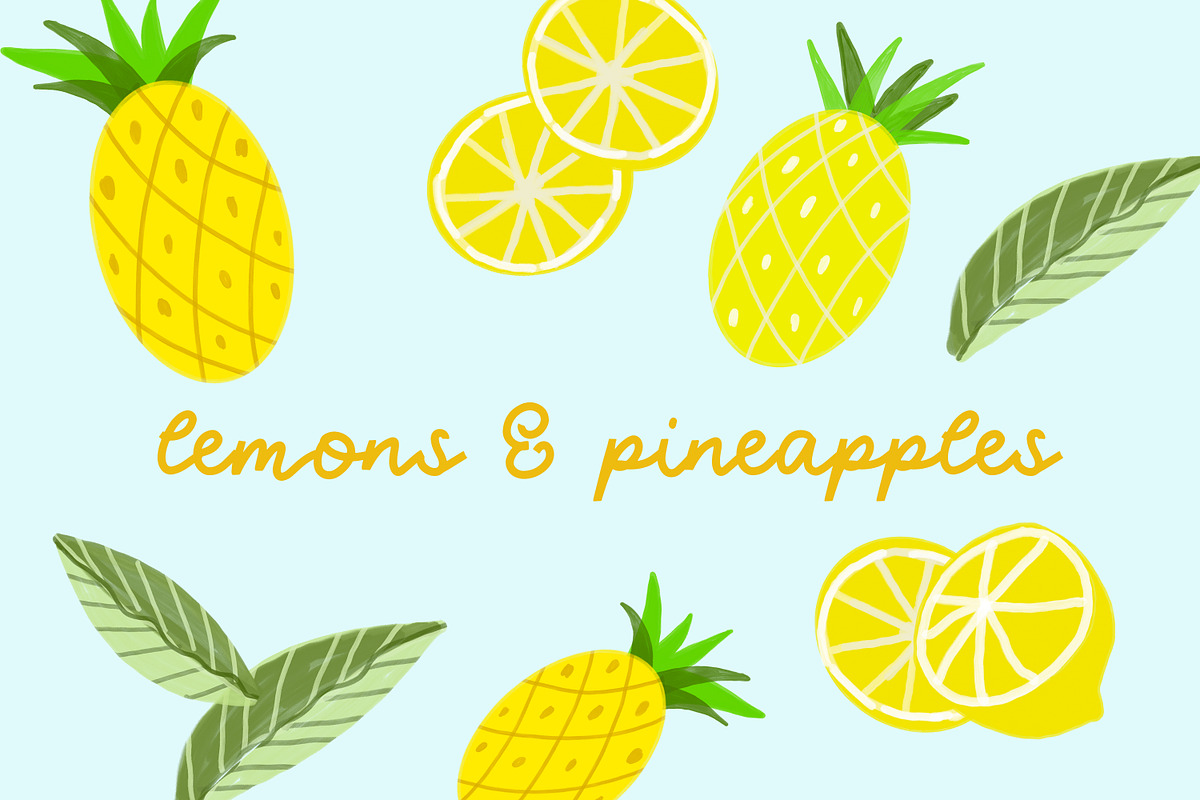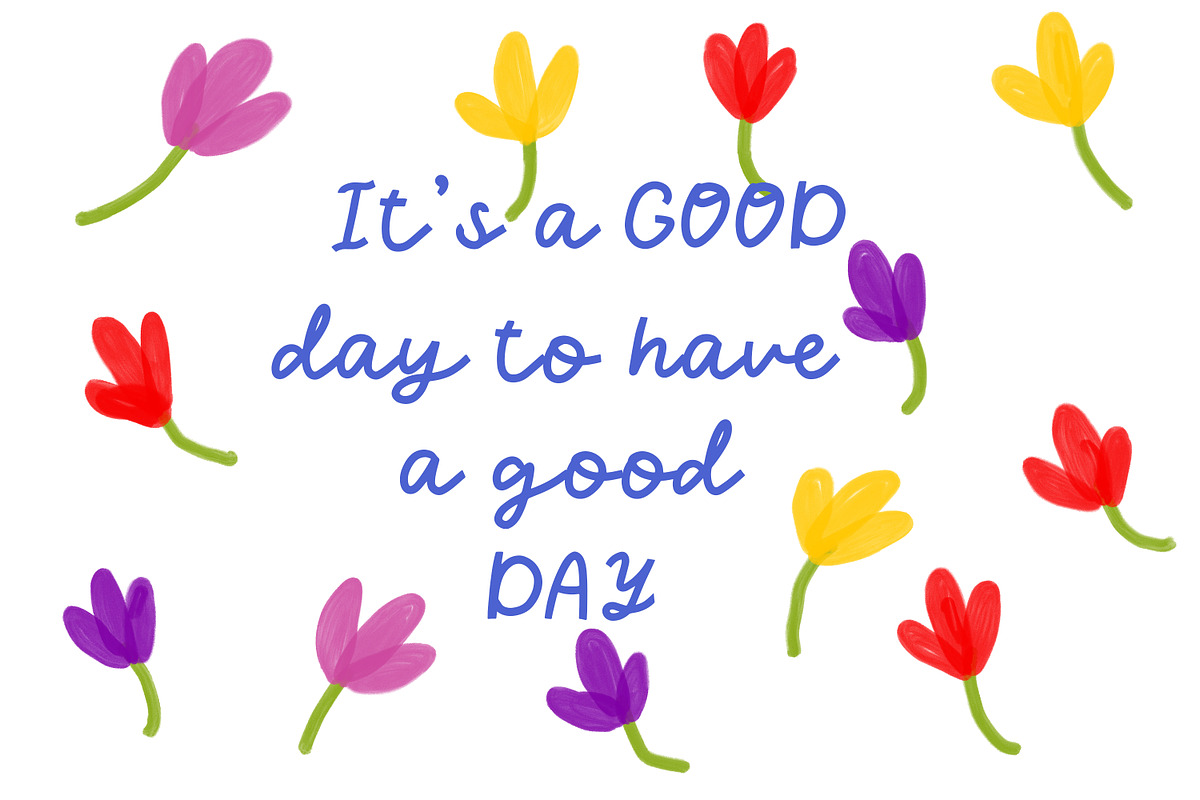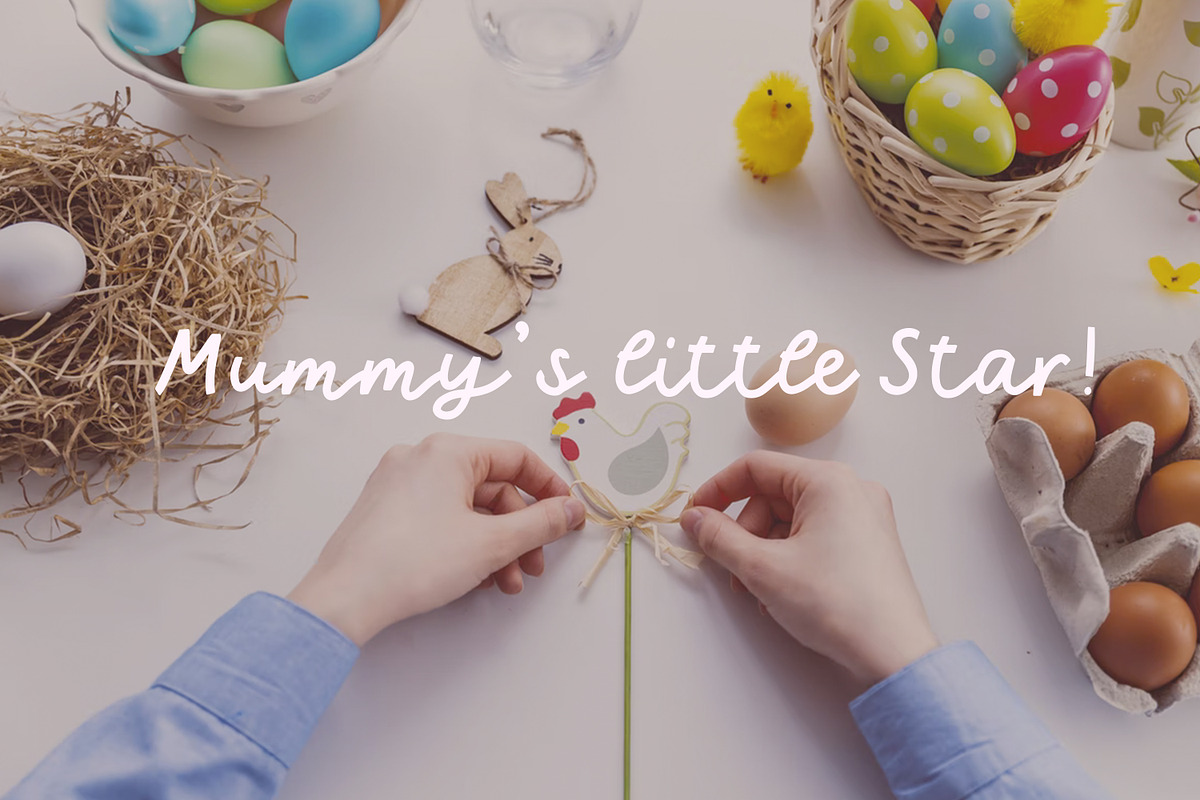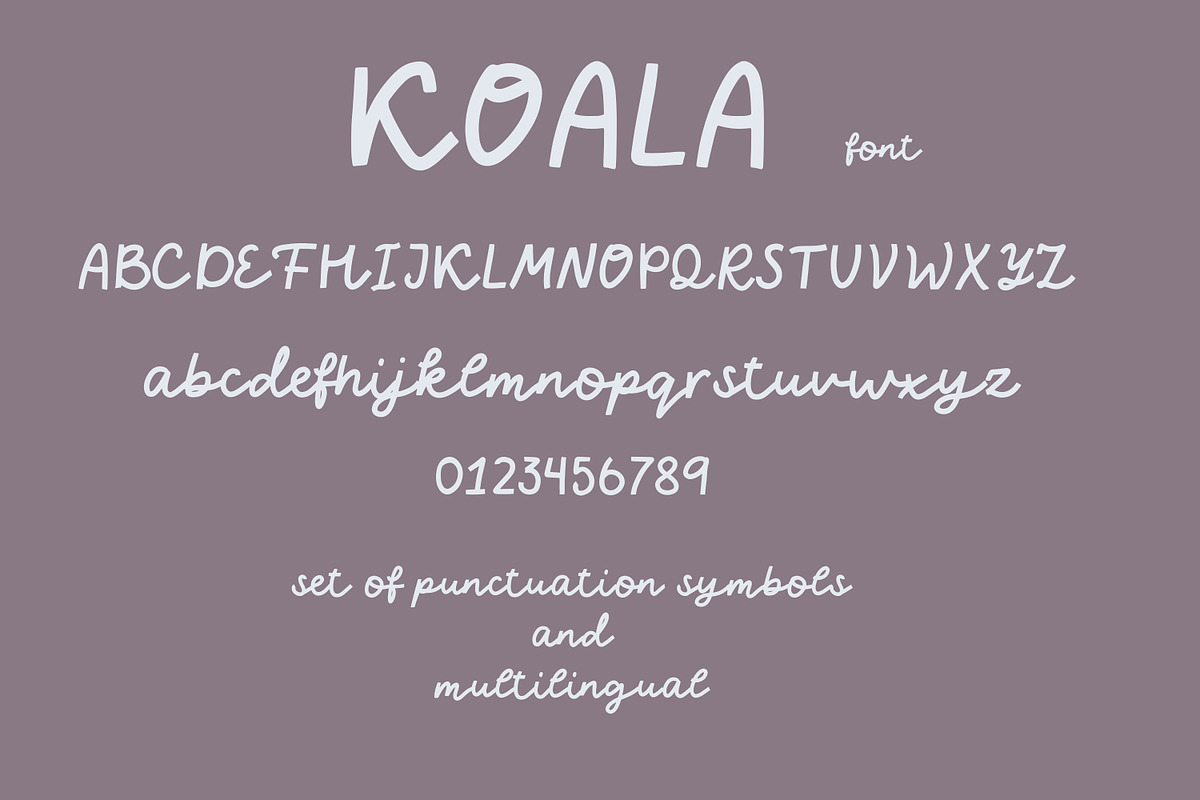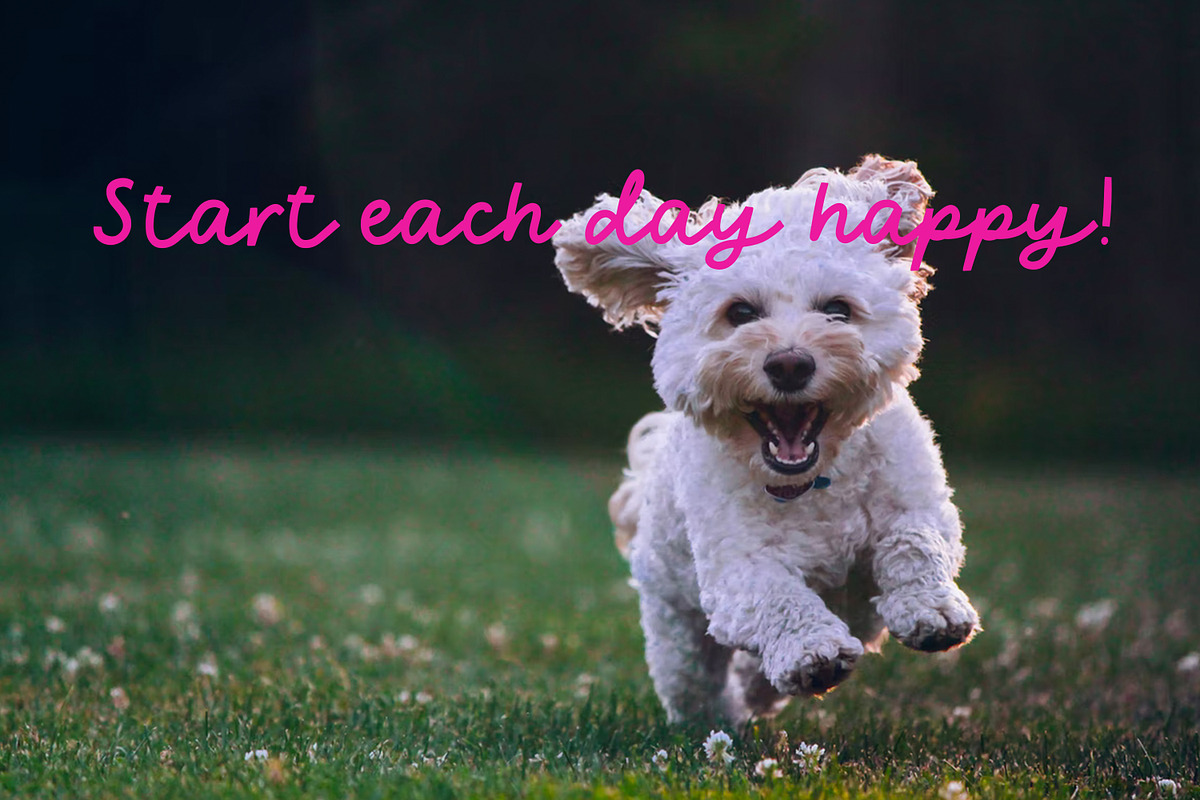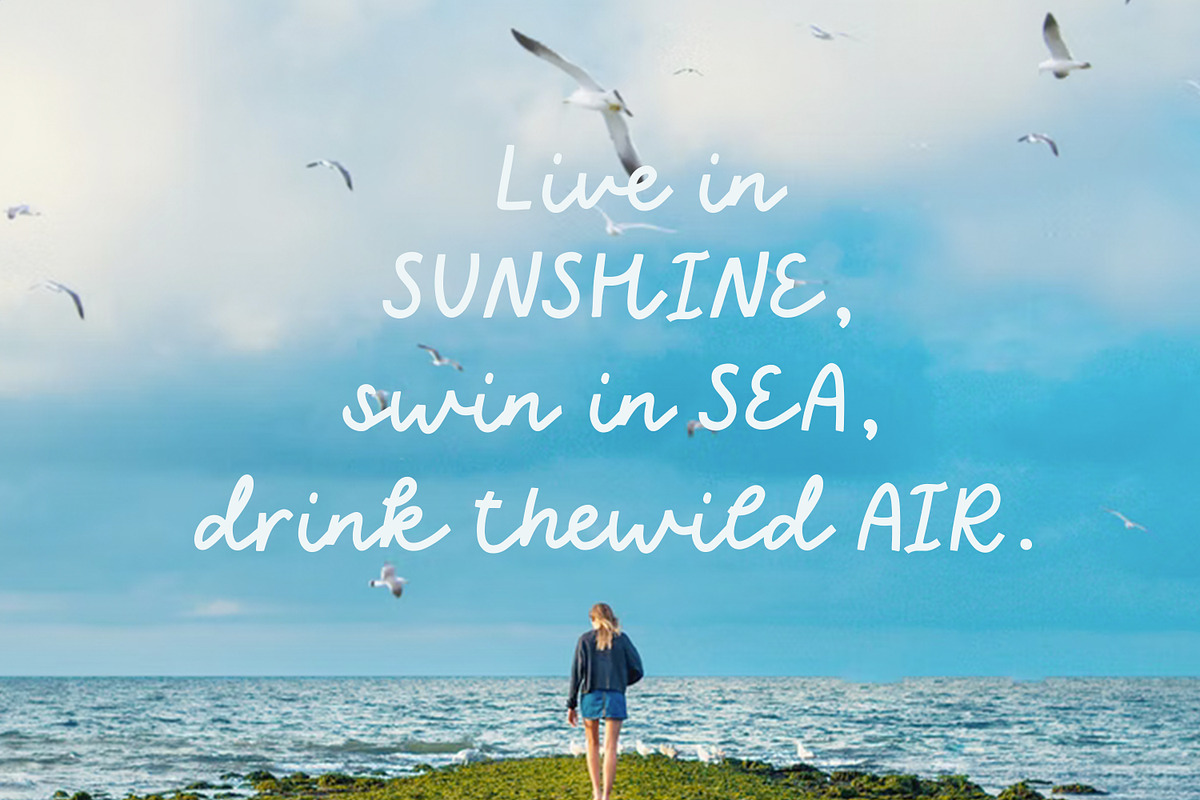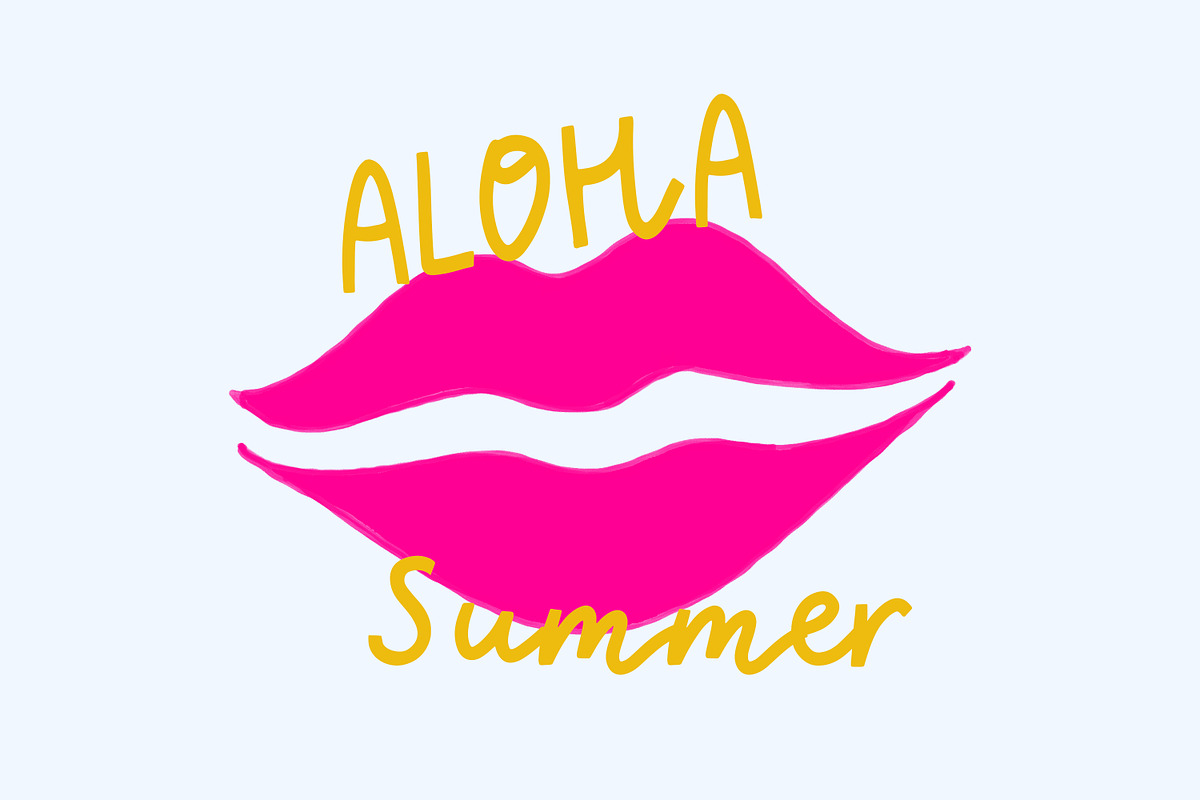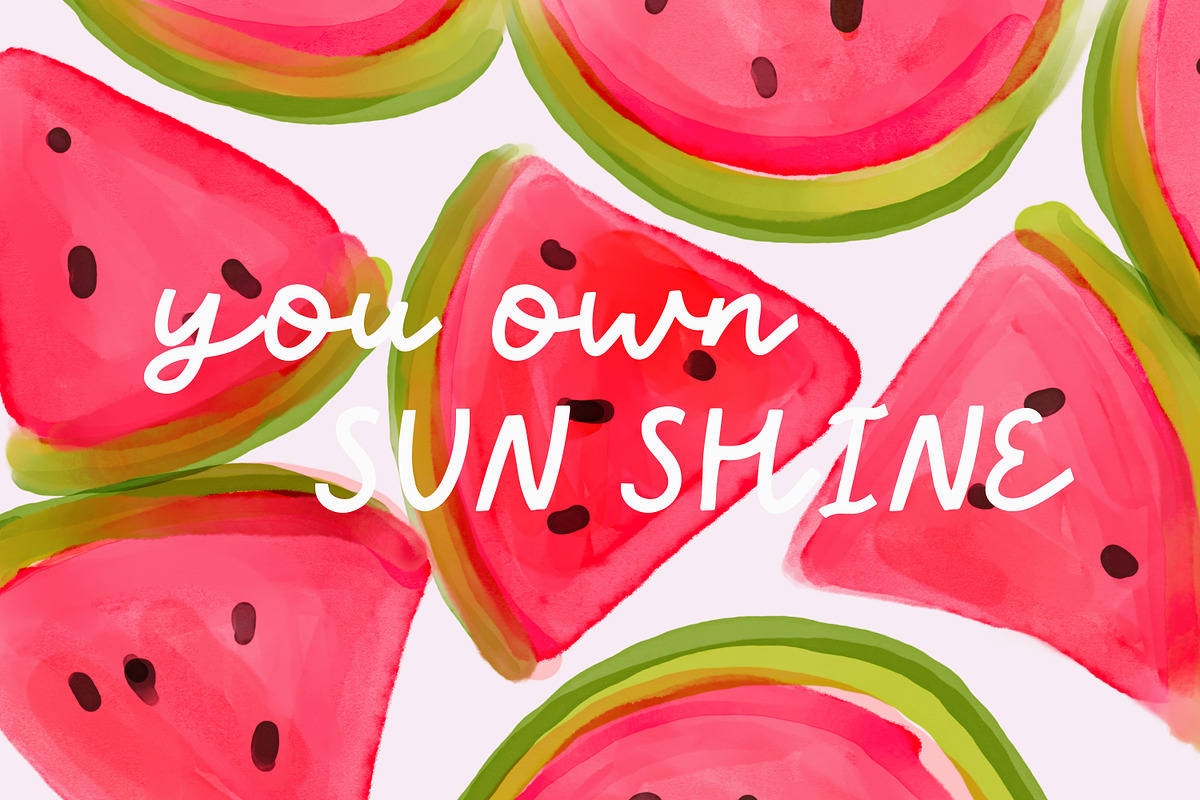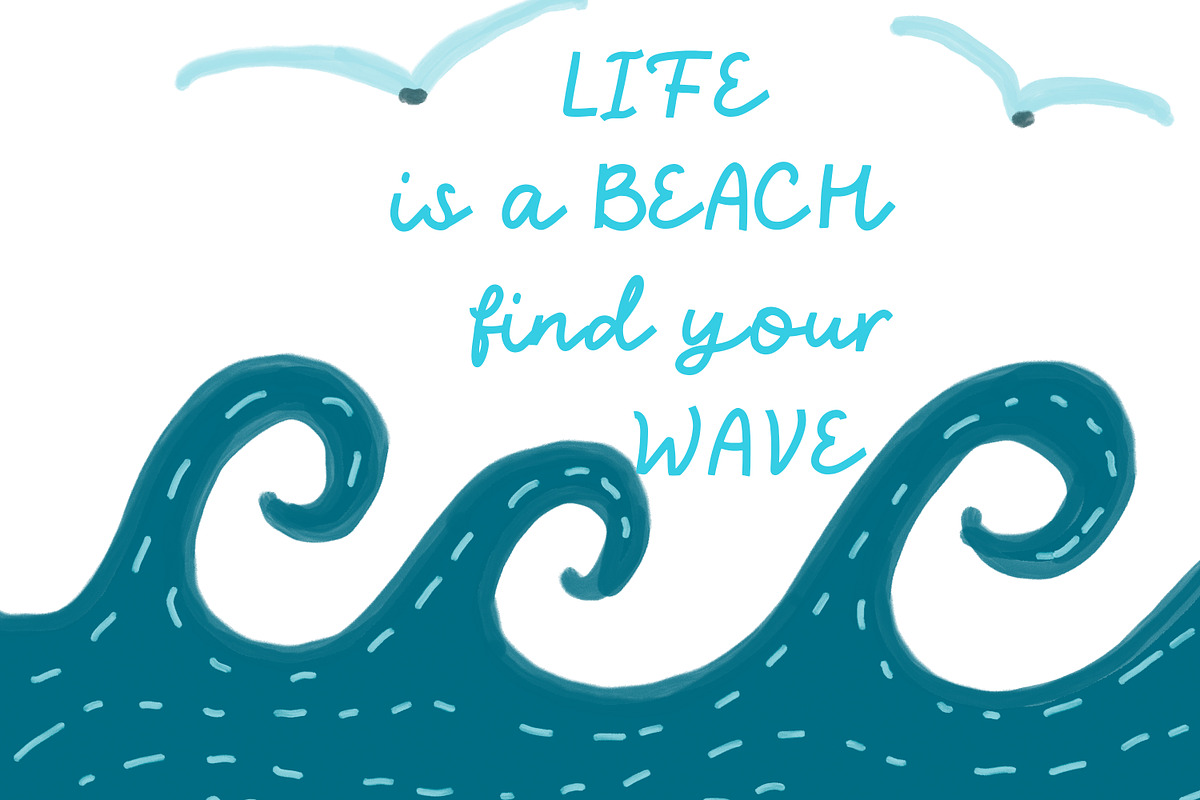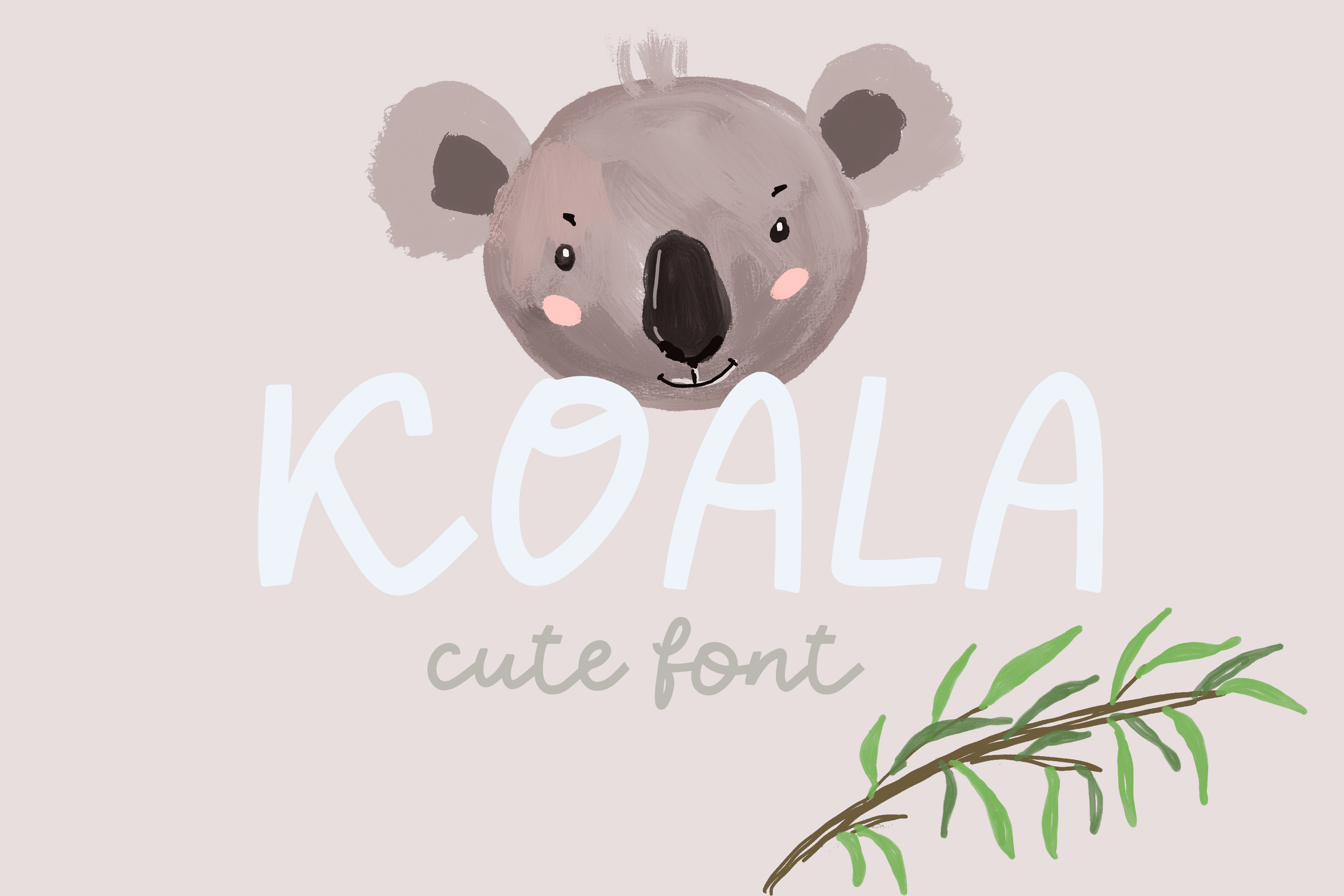
Koala | charming font
“Koala” font is a cute and charming hand-lettered font - perfect for casual type in greeting cards, apparel, illustrations, quotes, book covers, children's books, packaging and so much more. The font has ligatures built into their OpenType features to use it for your benefit.